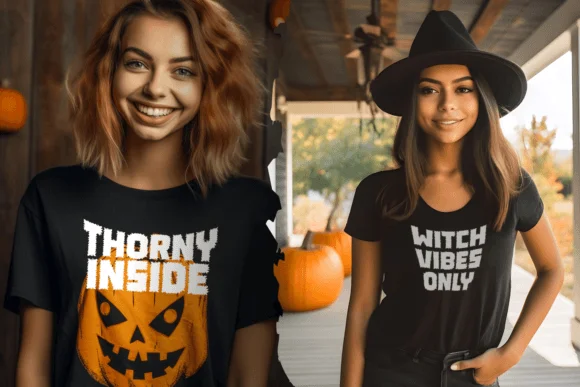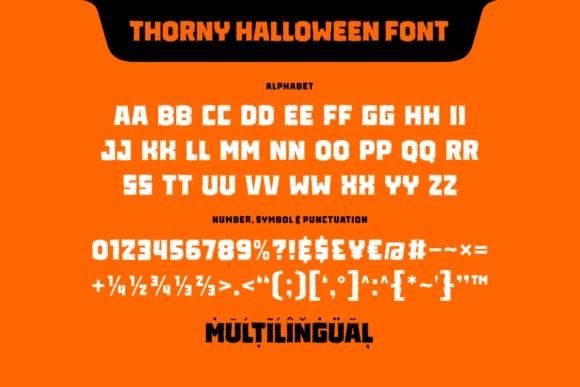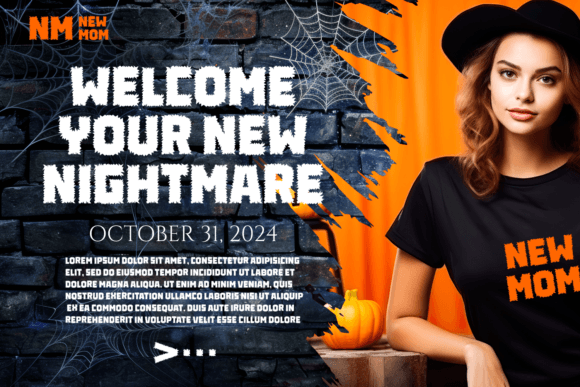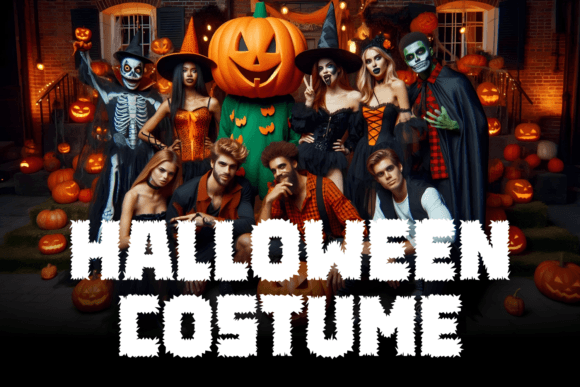
Thorny Halloween Font
This prickly font is perfect for dark fairy tale Halloween themes, gothic horror decorations, thorny castle displays, wicked witch celebrations, dark enchanted forest events, gothic Halloween branding, twisted fairy tale marketing, bramble-themed horror attractions, dark magical Halloween parties, and menacingly sharp Halloween messaging materials.
Thorny Halloween Font is exciting because it captures the dangerous beauty and protective menace of thorny vines and brambles through its sharply crafted letterforms that seem to bristle with natural defenses and supernatural warning. The font features jagged, angular characters with thorn-inspired proportions and prickly details that evoke the spine-tingling atmosphere of enchanted forests where beautiful roses hide deadly thorns and fairy tale castles are protected by impenetrable bramble barriers, incorporating sharp flourishes and barbed elements that create typography as menacing and beautiful as a midnight garden where every flower conceals a threat. Each letter showcases the duality of protection and danger that makes thorny themes so compelling in Halloween narratives, with razor-sharp curves and defensive accents that transform ordinary text into expressions of natural armor that capture the way nature creates beauty through dangerous design, making thorny elements both terrifying and irresistibly attractive in their deadly elegance.
The Thorny Halloween Font family includes prickly style variations: Regular, Bold, Light, Barbed, and Twisted versions. The collection features special thorny elements including spike accents, bramble flourishes, sharp details, and protective ornaments. Additional components include thorny borders, barbed frames, prickly decorations, and menacingly sharp ornamental designs that enhance the font's thorny Halloween appeal and create cohesive natural defense themes.
Gothic fairy tale creators and dark enchantment enthusiasts will find Thorny Halloween Font to be an invaluable resource for creating beautifully menacing Halloween communications that celebrate the dangerous allure and protective power of nature's thorny defenses. This sharply crafted font transforms ordinary Halloween messaging into thorny expressions that resonate with audiences who appreciate the complex beauty and natural menace that make thorny themes such compelling elements of dark fairy tale Halloween celebrations and gothic supernatural entertainment.
The typeface includes comprehensive character support with sharp styling that maintains excellent readability while conveying the dangerous beauty and protective menace of thorny Halloween celebrations. The font's prickly design ensures menacingly beautiful results across both fairy tale applications and gothic Halloween productions.
Perfect for gothic Halloween events, dark fairy tale celebrations, thorny decorations, and menacingly beautiful seasonal marketing, this font delivers sharply elegant visual impact that communicates natural danger, protective beauty, and the compelling duality that makes thorny themes such fascinatingly beautiful and elegantly menacing elements of Halloween's darker fairy tale traditions.